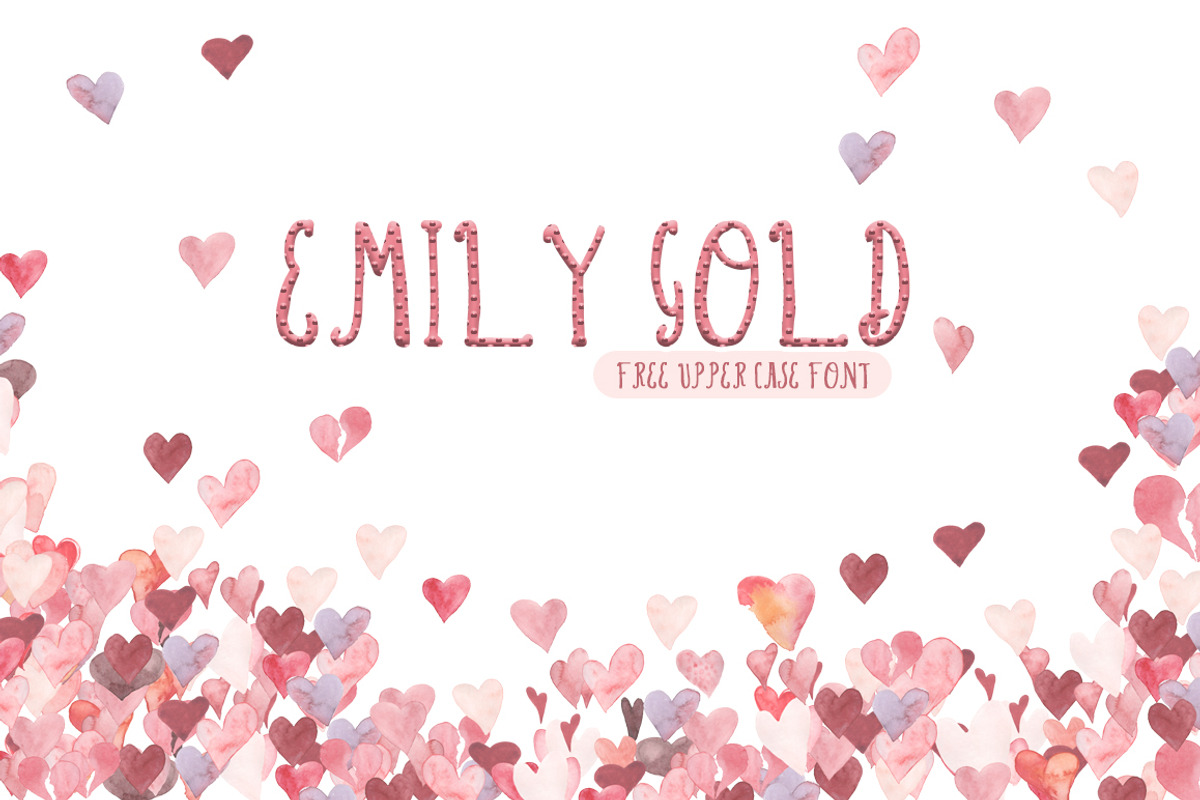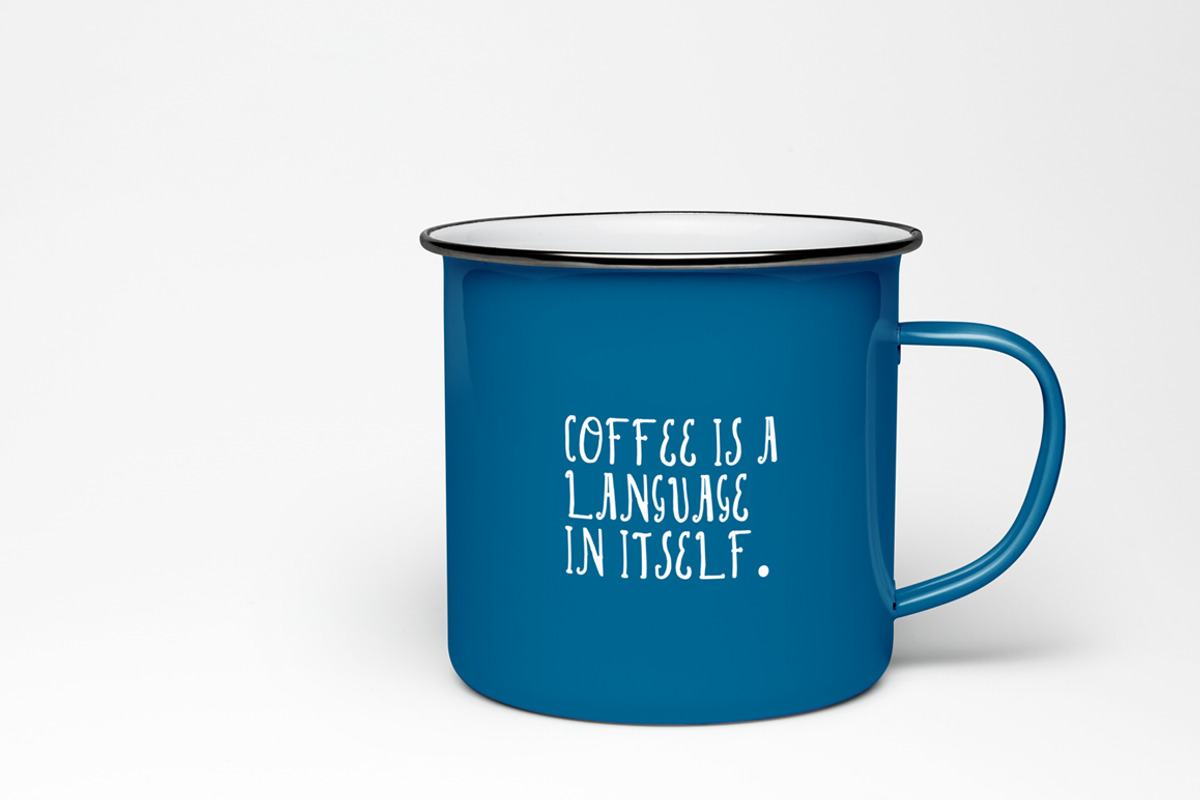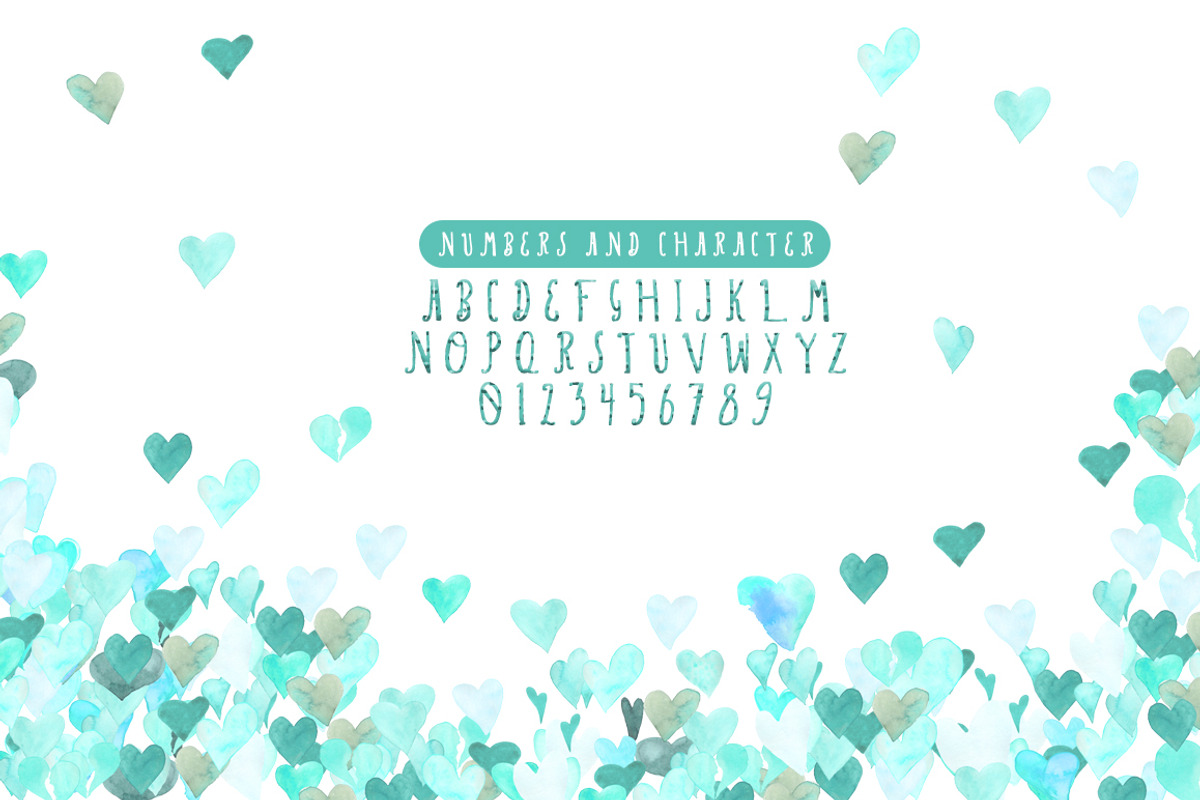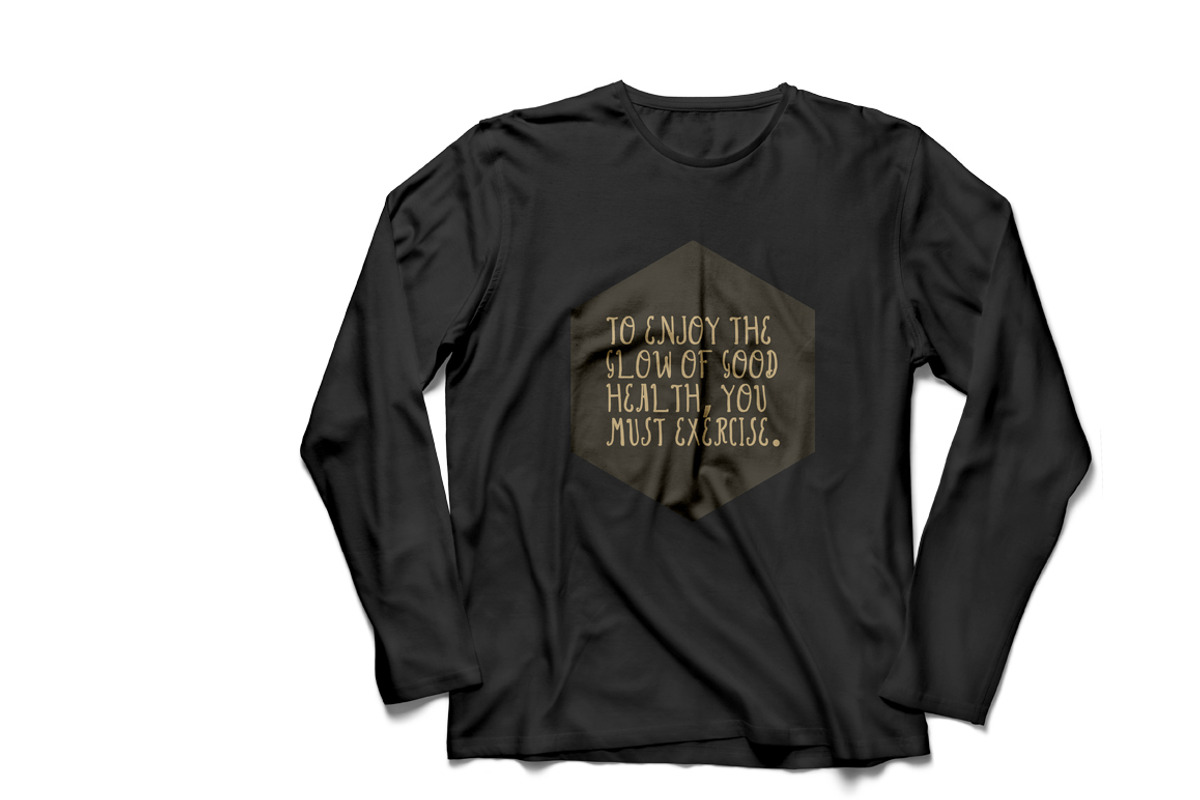
Emily Gold Script Font
Emily Gold Script Font by Creativetacos is a font selected for branding, posters, packaging, typography.
- This font is in Uppercase with numbers.
- Emily Gold Awesome
Why Emily Gold Script Font is worth a look
Emily Gold Script Font by Creativetacos fits naturally into Branding, posters, packaging, typography.